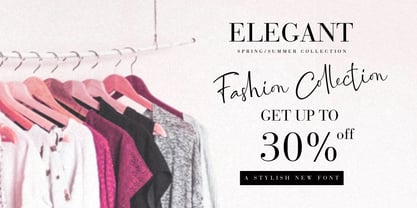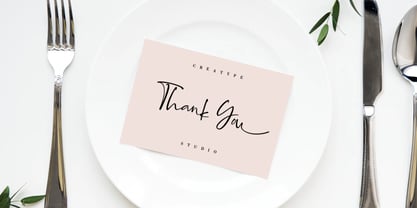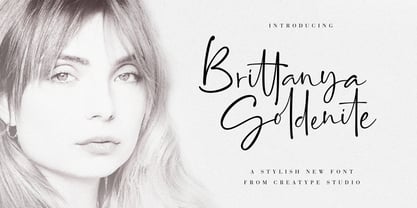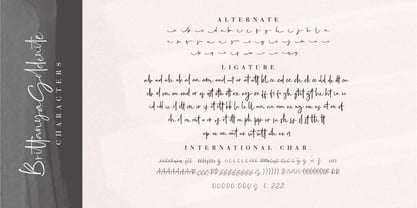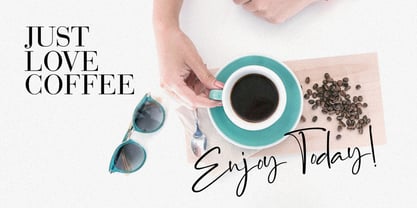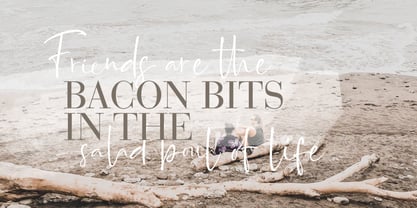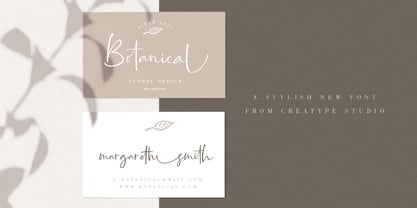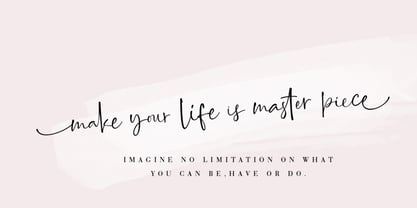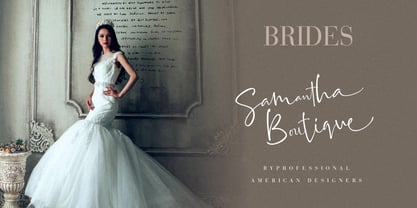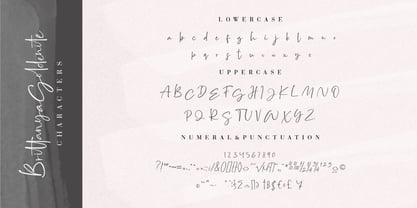
Brittanya Goldenite
by Creatype Studio
The Brittanya Goldenite Font Family was designed by Rian Rahardi and published by Creatype Studio. Brittanya Goldenite contains 1 styles. More about this family
Brittanya Goldenite is a modern handwritten script font that dances between elegance and personality. Its strokes are smooth, authentic, and full of character—bringing the warmth of human touch into your design.
Looking for a font that makes your design feel intimate, timeless, and beautifully handwritten? Brittanya Goldenite is your go-to script for capturing emotions with style—whether you're crafting wedding invites, building a brand, or elevating a social feed.
Designers: Rian Rahardi
Foundry: Creatype Studio